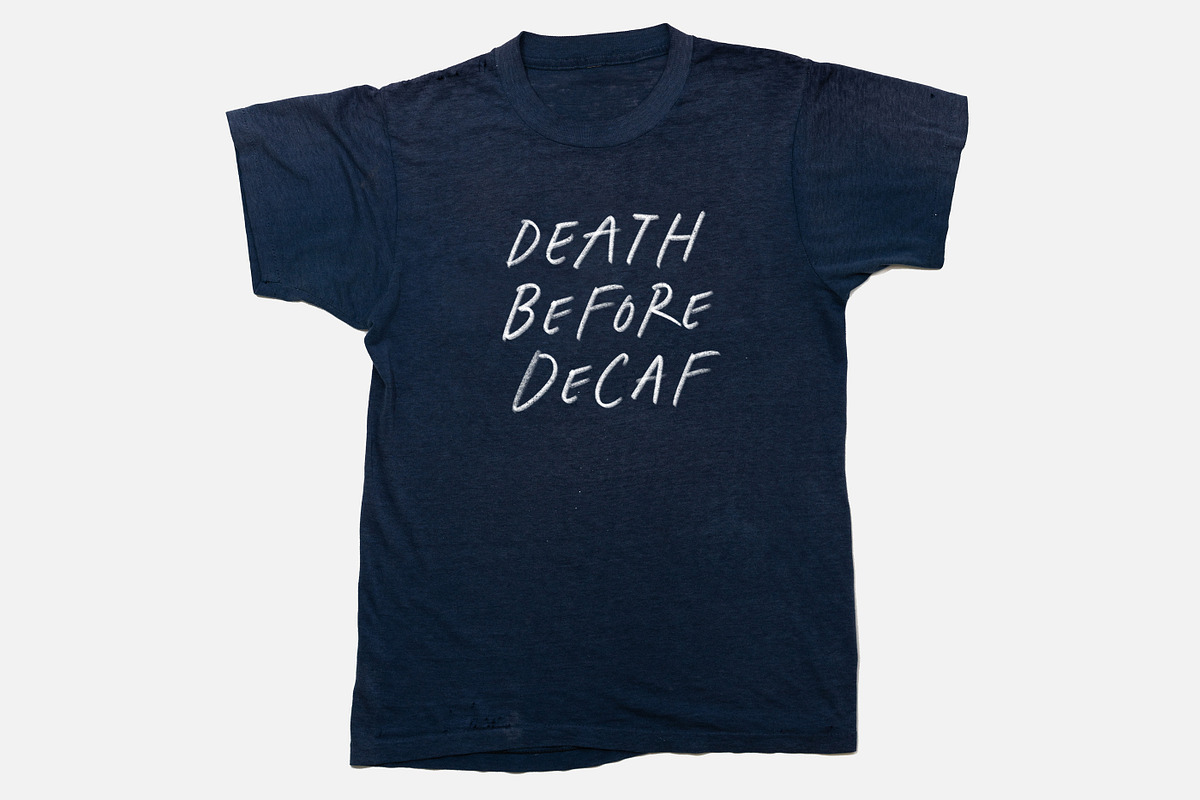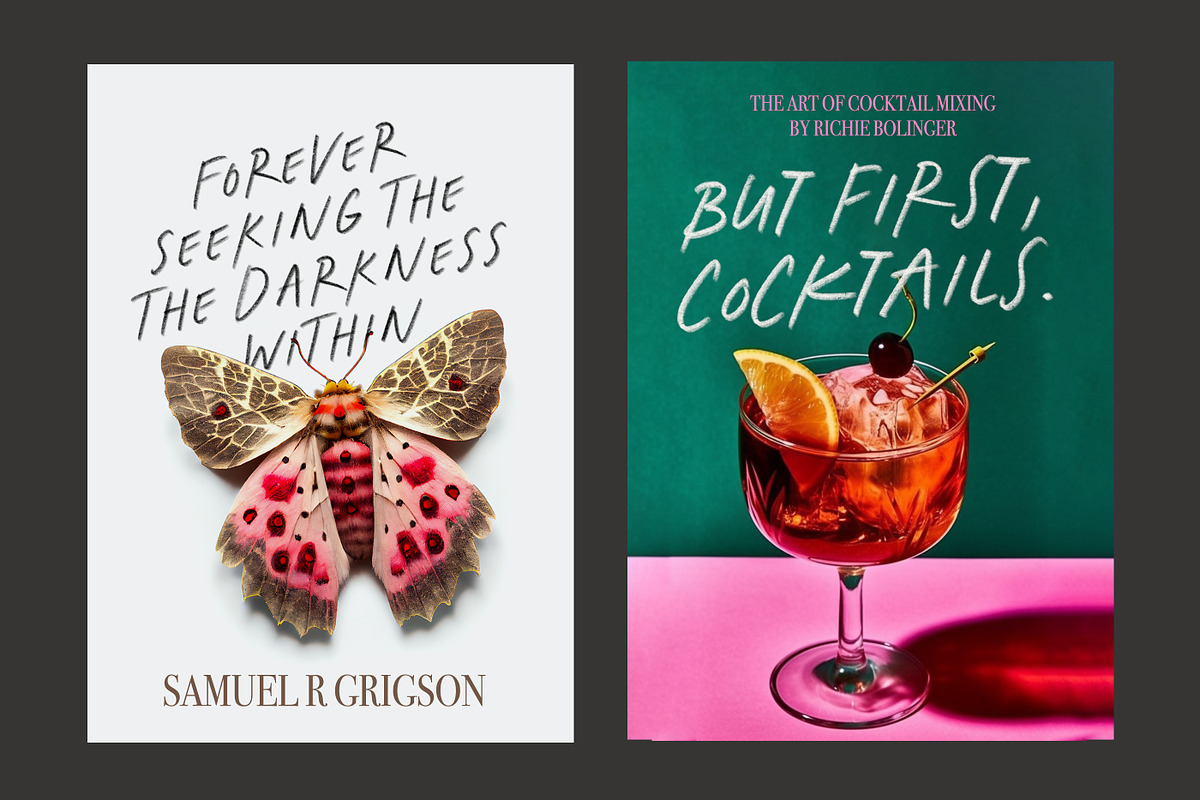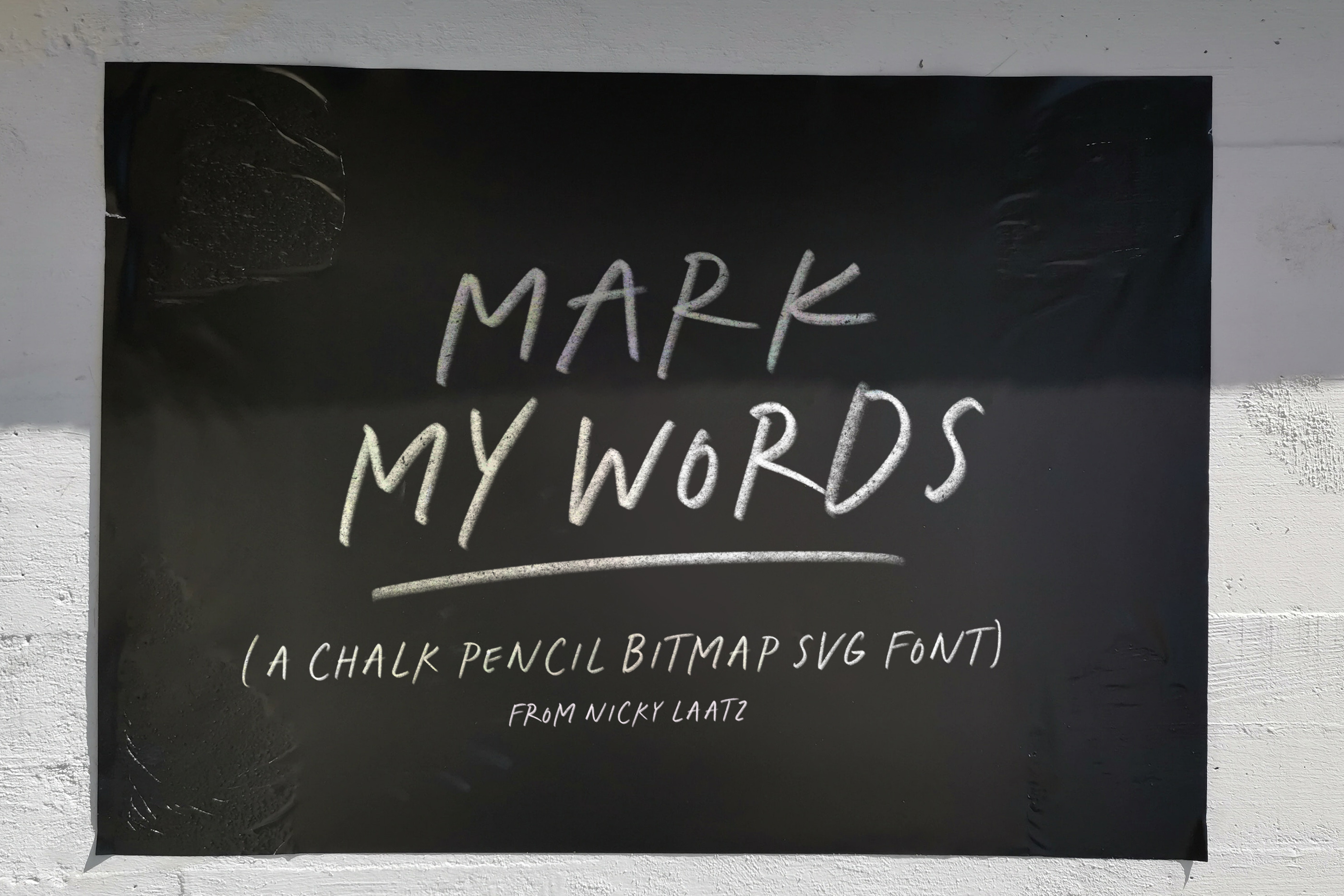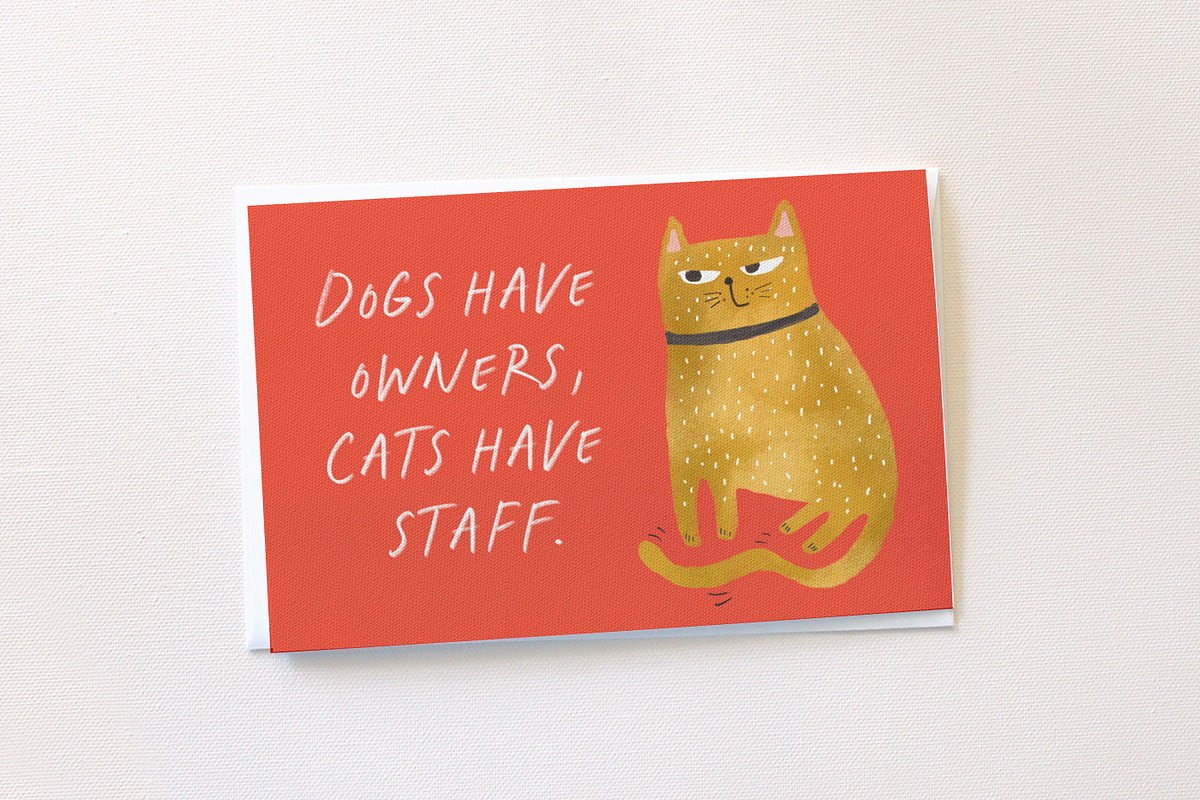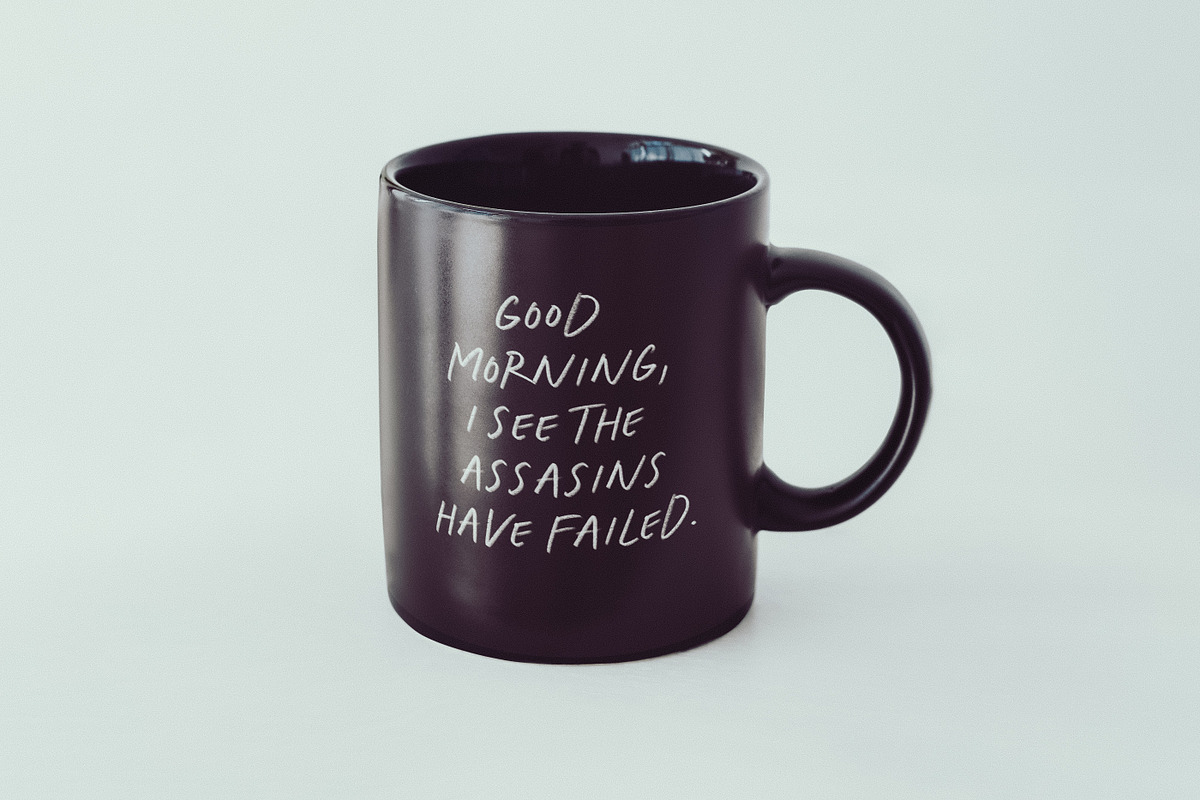
Mark My Words Bitmap SVG Font
Say hello to 'Mark My Words'!
A versatile, casual all-caps Pencil Bitmap SVG font :) Playful but with a touch of serious.
It comes in four variants : Regular, Oblique, Tight and Oblique Tight.
Tight = Automatically tighter letterspacing/tracking if you prefer it :)
Great for overlaying on photos and just as striking on its own. Think posters/bookcovers/greetings and quotes.
The uppercase and lowercase keystrokes have differing letters.
If you type (), {}, or == with your ligatures on - you'll even get a pencilled swash!